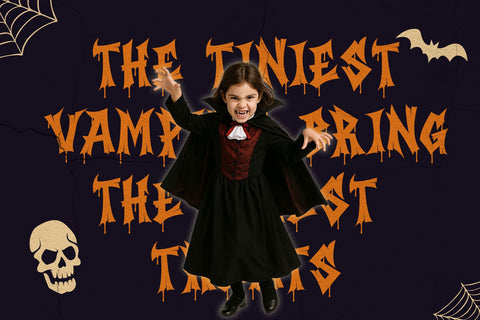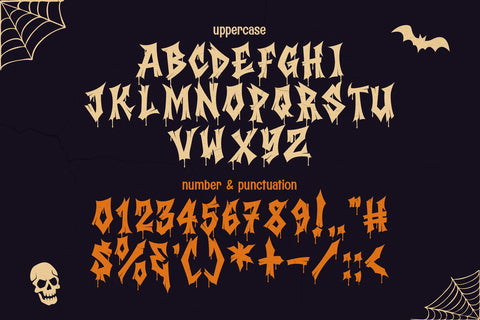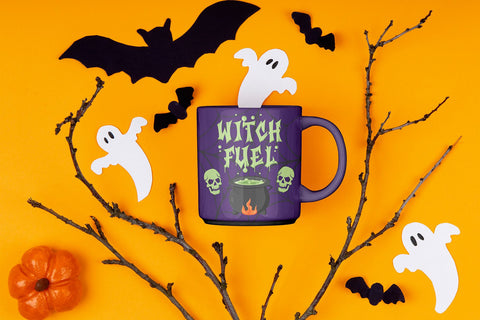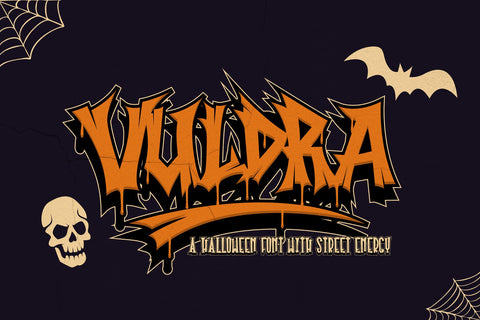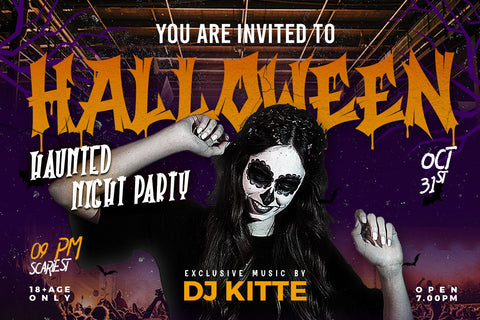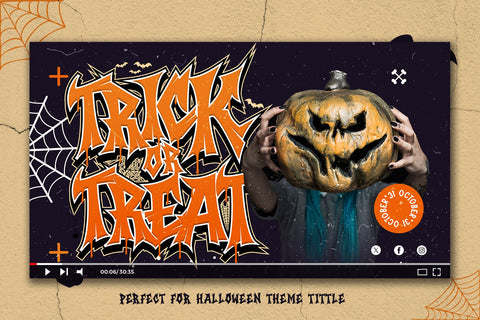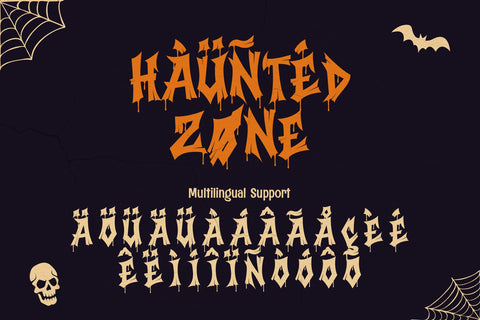
Vuldra - Halloween Font with Street Graffiti Energy
Vuldra is a bold Halloween graffiti design that fuses spooky atmosphere with raw urban street culture. Available in two expressive styles — Regular/Clean for strong readability and Dripping for untamed horror energy — it gives designers the flexibility to adapt their work for any project. What makes Vuldra stand out is the unique wild graffiti look enhanced with wood texture, adding organic depth and gritty realism to every stroke. Perfect for both seasonal and year-round use, Vuldra works across apparel, streetwear branding, horror posters, event flyers, packaging, and digital media like websites, social campaigns, or YouTube thumbnails. Its versatility ensures it can switch from creepy Halloween vibes to edgy streetwear graphics seamlessly. With OTF, TTF, WOFF, and WOFF2 formats included, Vuldra is optimized for professional designers who want maximum impact, authenticity, and style.